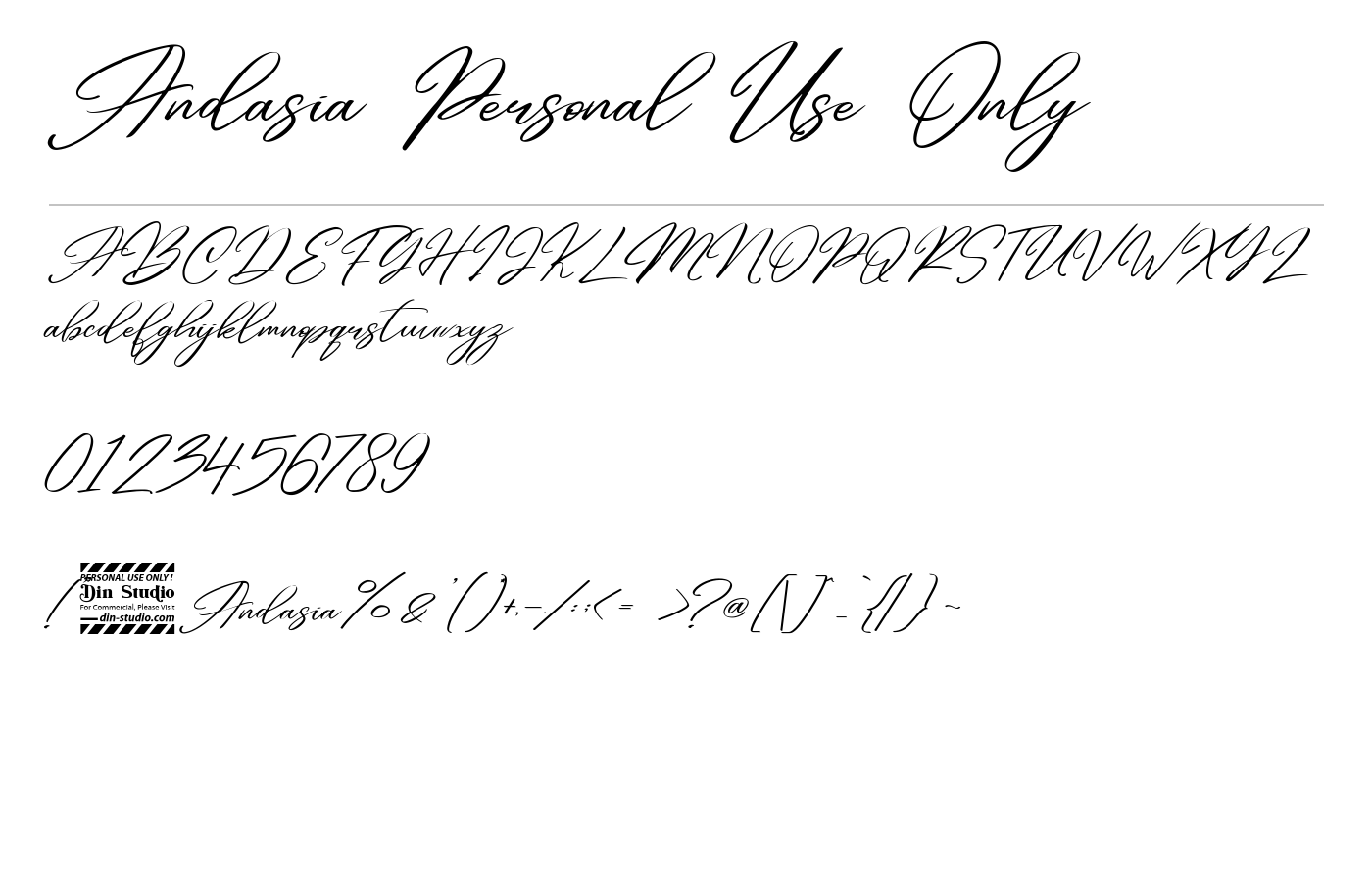
Andasia Personal Use Only is a delicate and elegant script font that features slender, flowing strokes with a graceful and handwritten feel. Its fine line weight and smooth, cursive forms make it ideal for adding a touch of sophistication and charm to invitations, branding, and personal projects. This font works beautifully in designs that seek to evoke elegance and a refined, artistic style.
Andasia Personal Use Only Font
About Andasia Personal Use Only Font